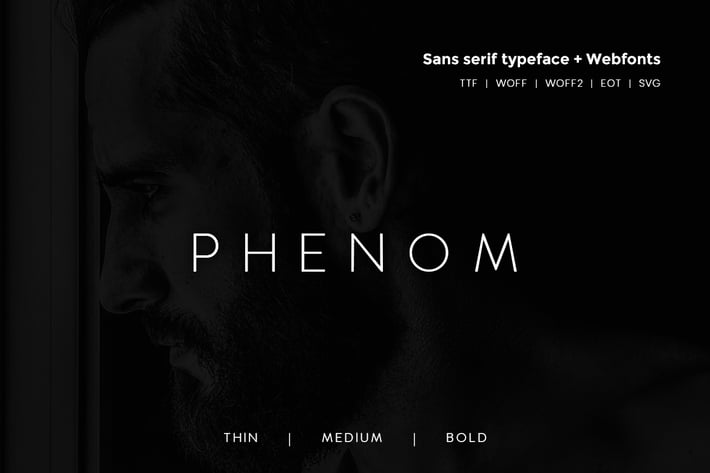
Phenom Grotesque - Modern Typeface + Webfonts
Phenom Grotesque Typeface
Phenom Sans is a modern and Minimal Sans Serif typeface, Phenom Sans can keep the minimalism at its level best and is a Perfect choice for Creative and Classic Typography Designs. The pack includes OTF, TTF and Web Fonts (all EOT, SVG, TTF, WOFF included).
Font Designed and Crafted by Alex Francis, Distributed by Webhance Studio.